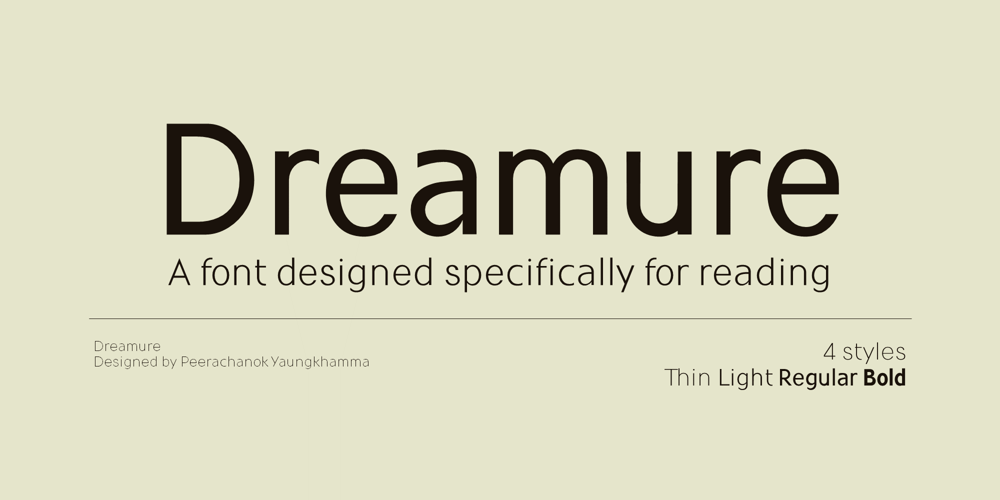
Dreamure
Dreamure font
Dreamure Font Family was designed by Peerachanok Yaungkhamma and published by Nexitype. Dreamure contains 4 styles and family package options. Dreamure is a font designed specifically for reading on online platforms.With the fun and cheerful character of the font, Dreamure also gives you an easy-to-read design.Dreamure will help your work become attractive and user-friendly.